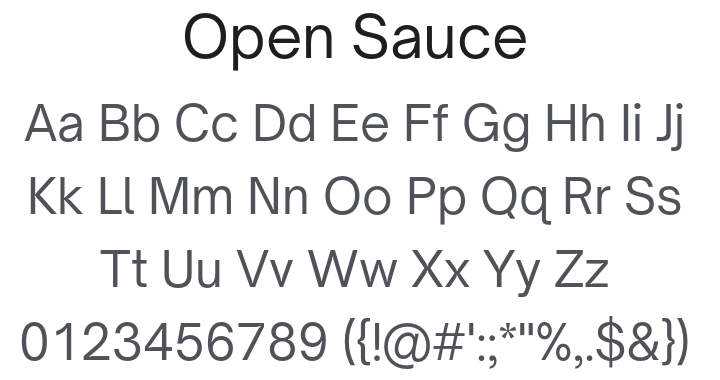
Open Sauce Font Family
by Hanken Design Co.
About Open Sauce
Open Sauce Fonts is a modern grotesque superfamily crafted by Alfredo Marco Pradil for Creative Sauce's internal type system. Designed to excel in digital interfaces and print, the family balances compact proportions with generous clarity, making it ideal for UI, branding, and editorial typography.